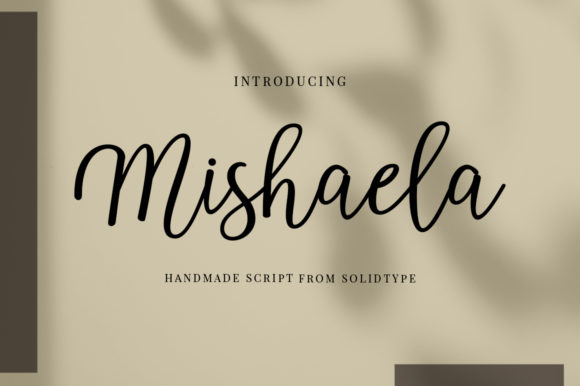
Introducing Mishaela Script Font - A Contemporary Handwritten Delight!
In the realm of typography, where words dance on the digital canvas, Mishaela Script Font emerges as a captivating creation by Solidtype. This enchanting script font exudes an aura of authenticity and charm, inviting you to embrace its contemporary allure. Mishaela isn't just a font; it's an artistic expression waiting to adorn your creative endeavors.
With its graceful curves and playful strokes, Mishaela Script Font possesses an undeniable magnetism that draws the eyes and captivates the senses. Its meticulous design evokes a sense of nostalgia, reminiscent of handwritten letters penned with care. Whether you're crafting logos, branding designs, or adding a personal touch to your social media posts, Mishaela Script Font is your perfect companion.
Imagine your words flowing effortlessly across the screen, imbued with the charm and elegance of Mishaela Script Font. Its versatility knows no bounds, allowing you to effortlessly elevate digital designs, greeting cards, posters, and product packaging. Let your creativity soar as you witness your ideas transform into captivating visual masterpieces.
Dive into the world of Mishaela Script Font and discover a treasure trove of possibilities. Its contemporary aesthetics seamlessly blends with a touch of nostalgia, creating a timeless appeal that resonates with modern sensibilities. Embrace the beauty of handwritten charm and watch your designs blossom with an unforgettable touch.